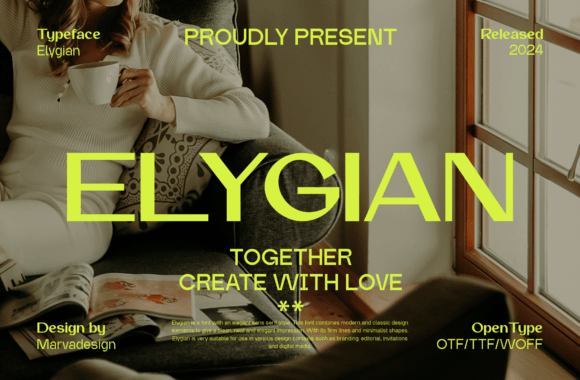
Introduction to Eleygian Font
Introducing **Elygian** is a font with an elegant sans serif style.
This font combines modern and classic design elements to give a clean, neat and elegant impression With its firm lines and minimalist shapes, Elygian is very suitable for use in various design contexts such as branding, editorial, invitations and digital media.
Why Choose Eleygian Font?
Eleygian Font offers exceptional quality and versatility, making it a valuable addition to your design toolkit. Whether you’re creating for personal projects or commercial use, Eleygian Font delivers professional results.